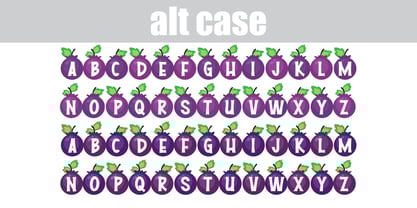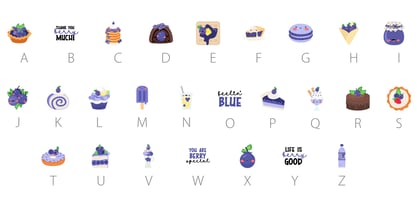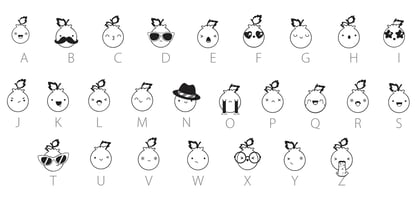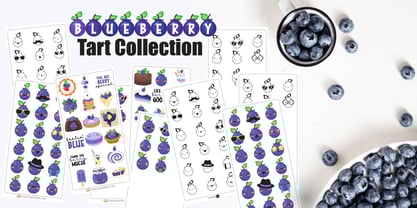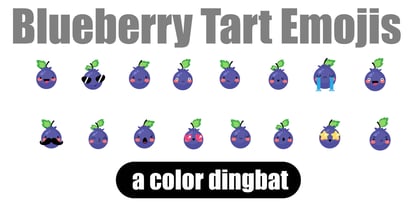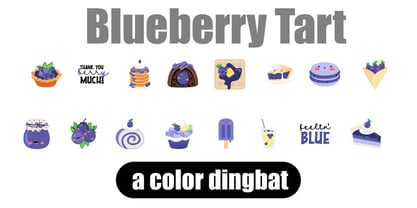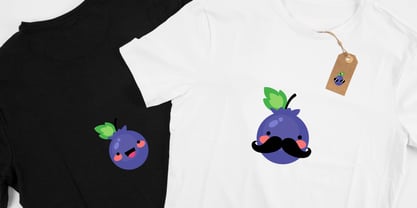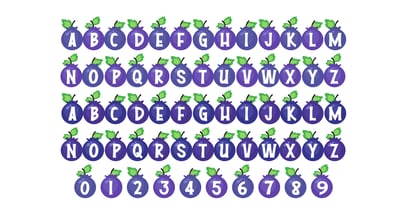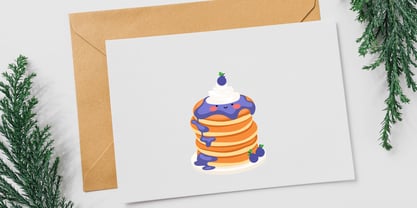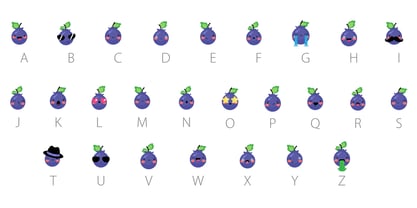
Blueberry Tart
by Illustration Ink
The Blueberry Tart Font Family was designed by Illustration Ink and published by Illustration Ink. Blueberry Tart contains 5 styles and family package options. More about this family
Blueberry Tart! This font bundle features kawaii-style blueberry emojis, blueberry treats, and more. This bundle has 1 full-color font, with an alt case of additional colors of each letter that you can access through your system's glyph map, 2 full-color dingbats, and 2 regular dingbats.
Designers: Illustration Ink
Foundry: Illustration Ink